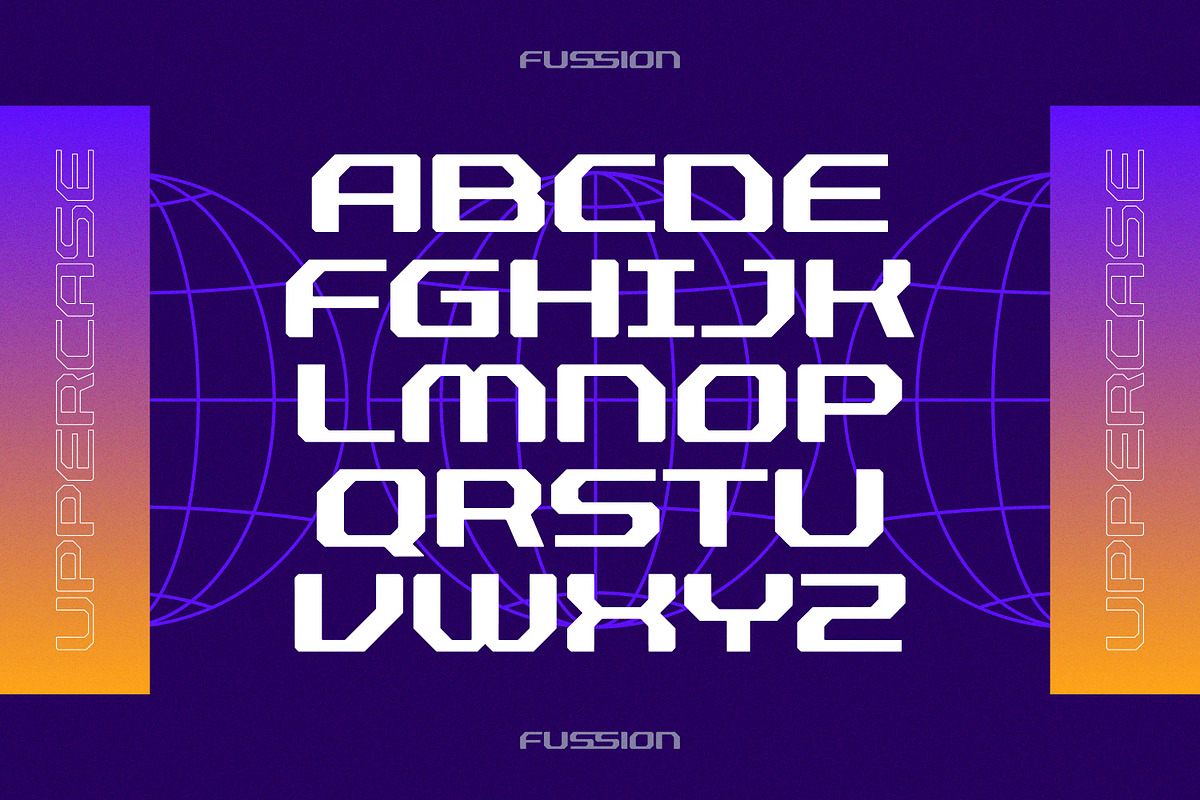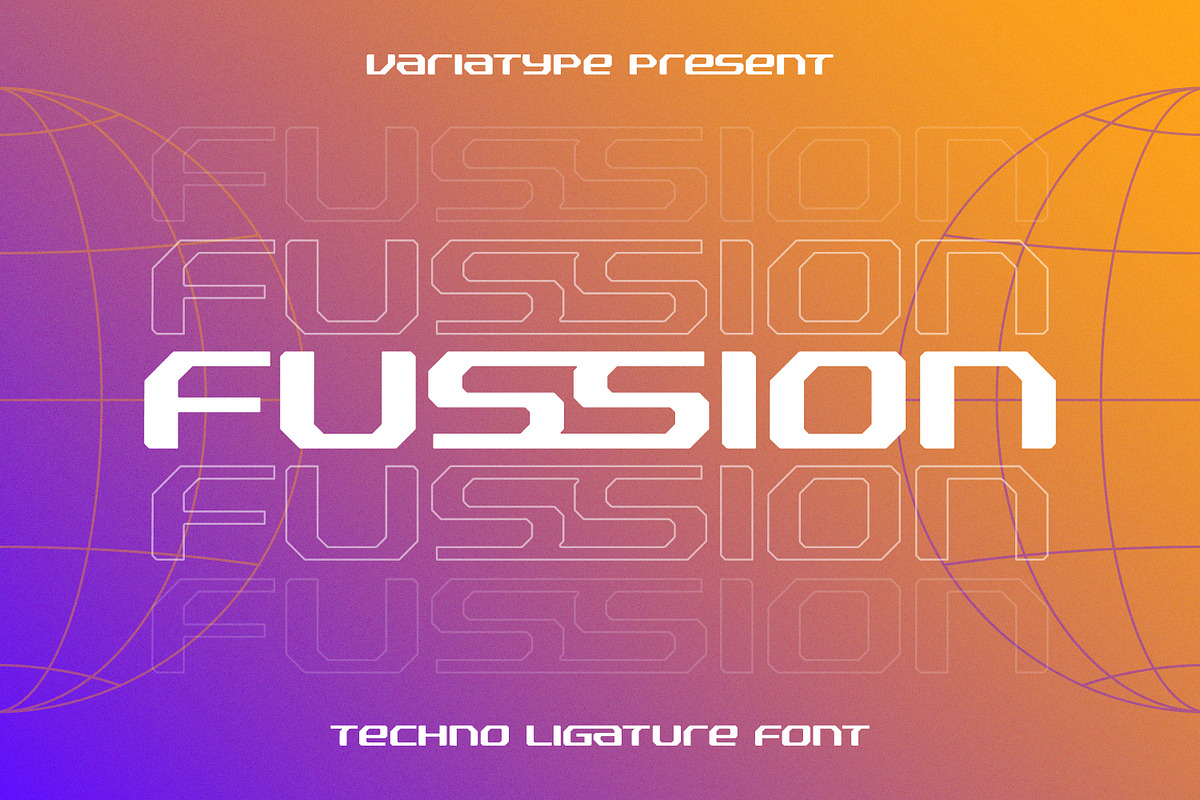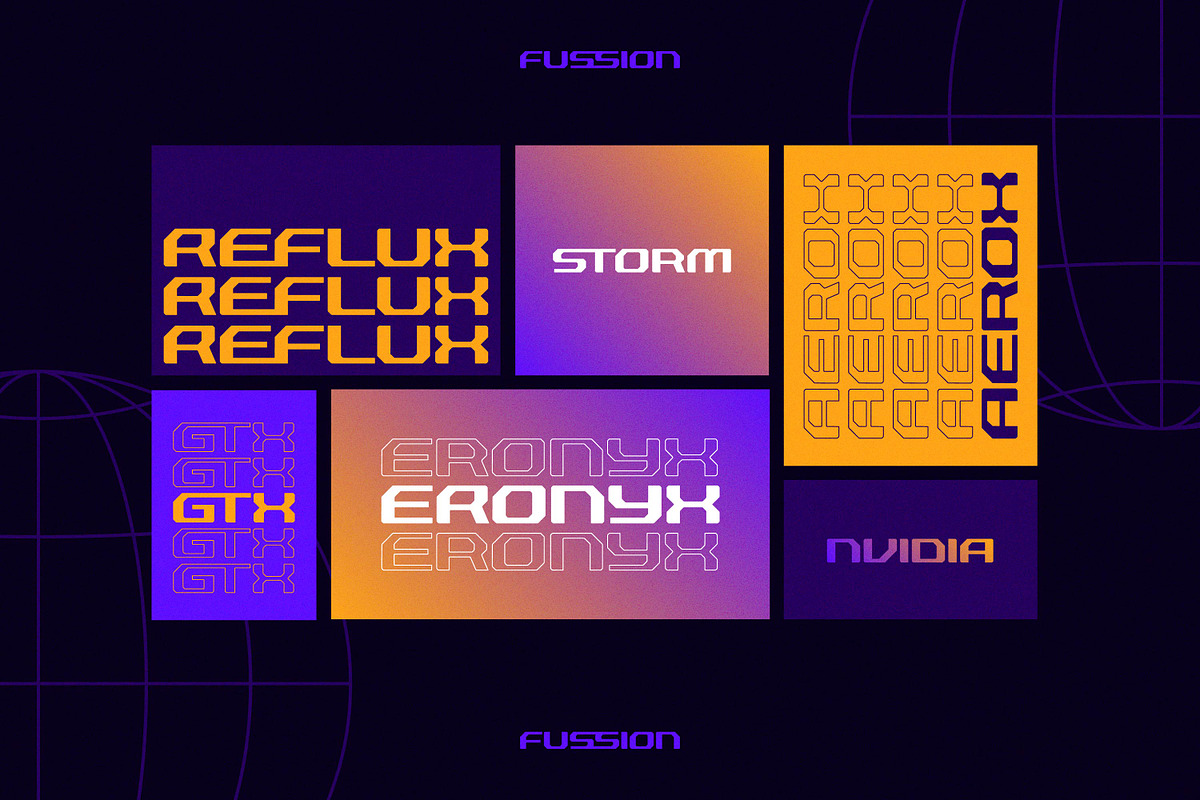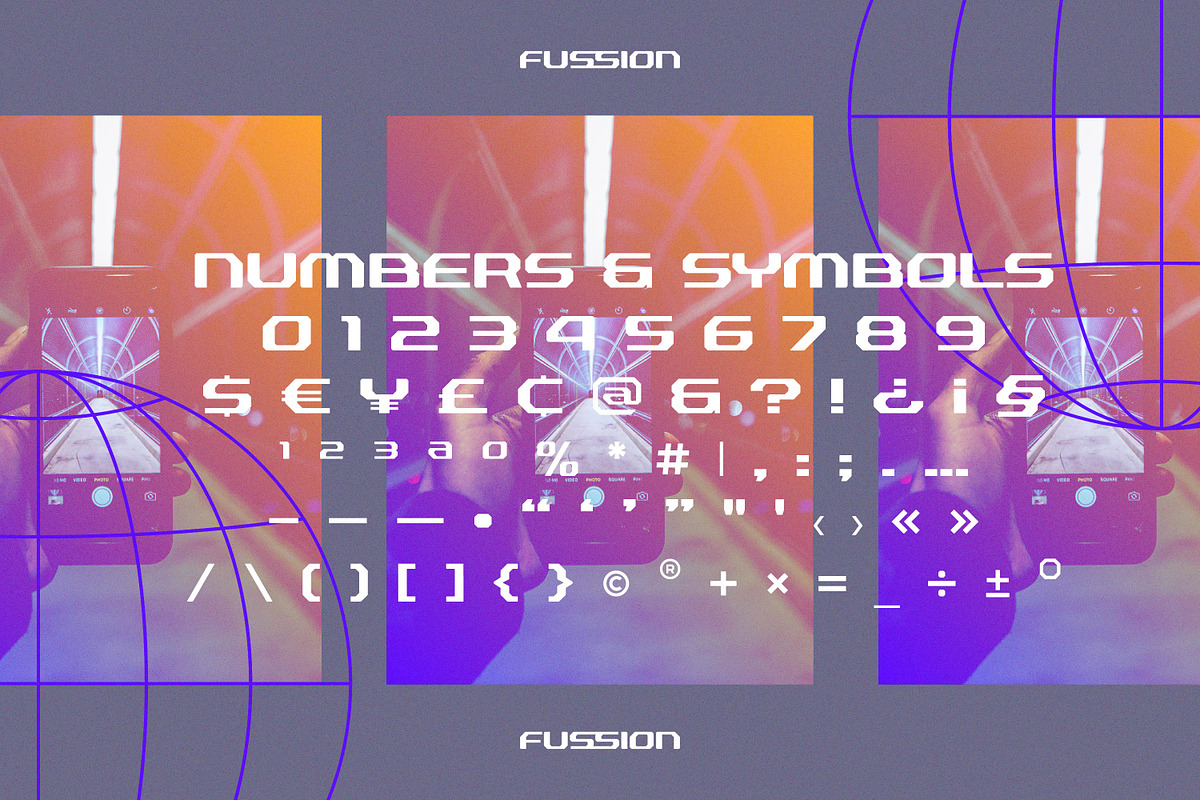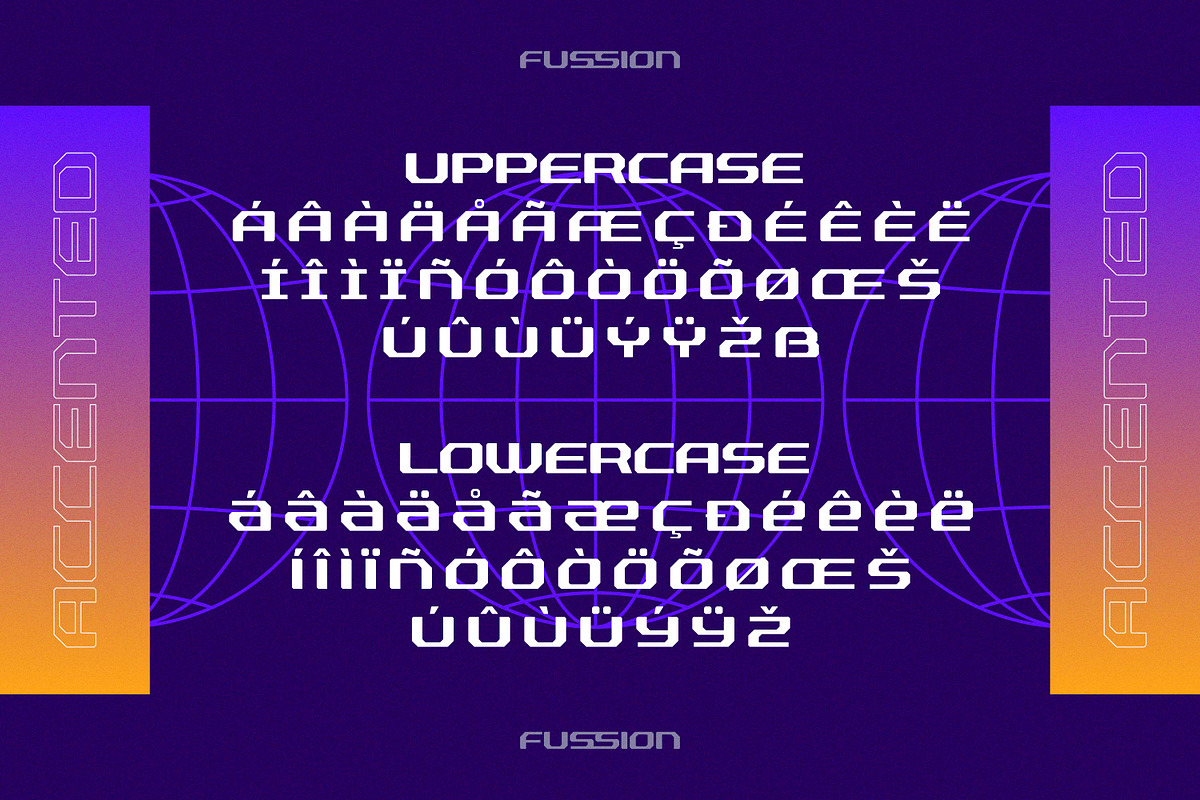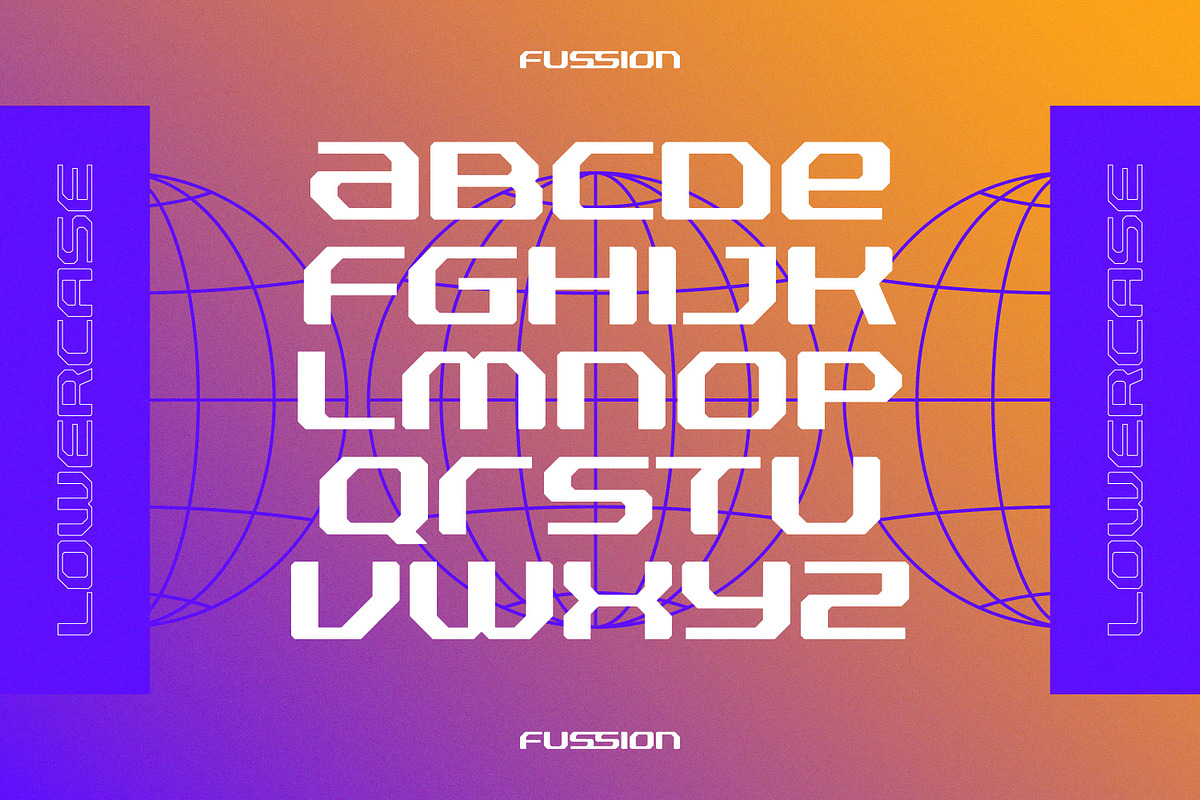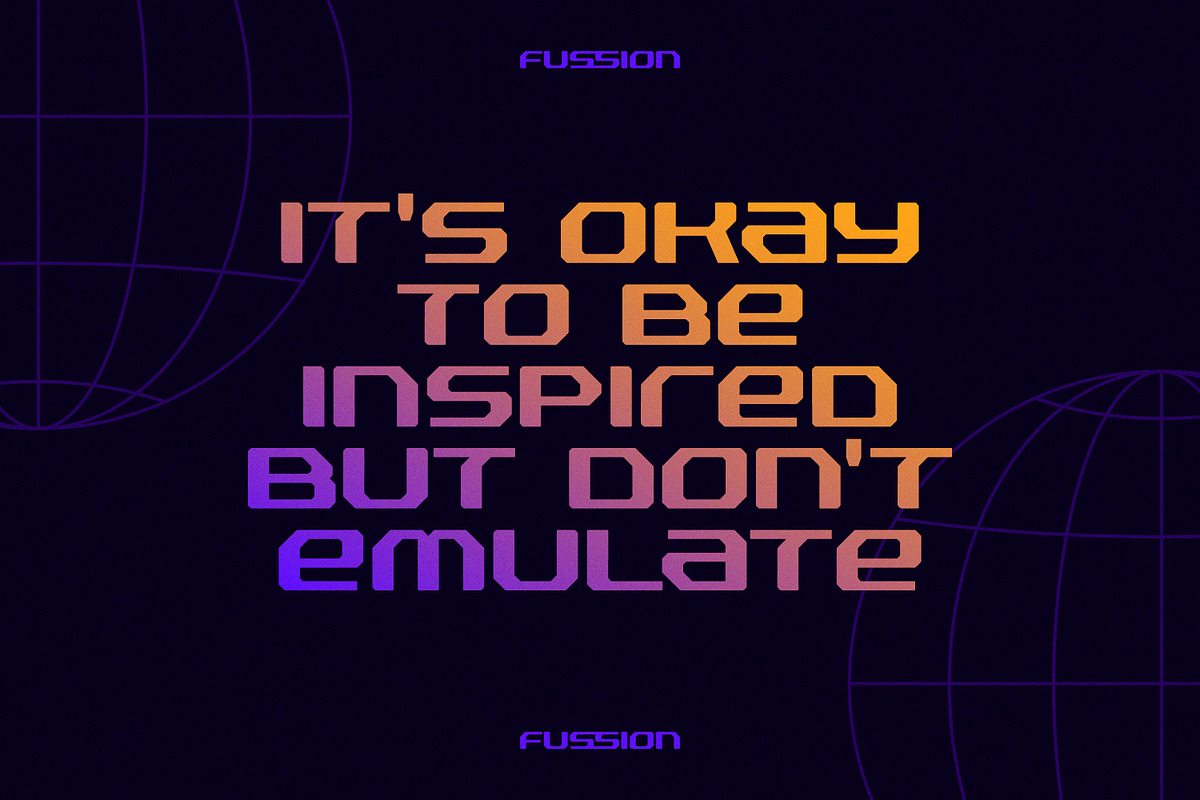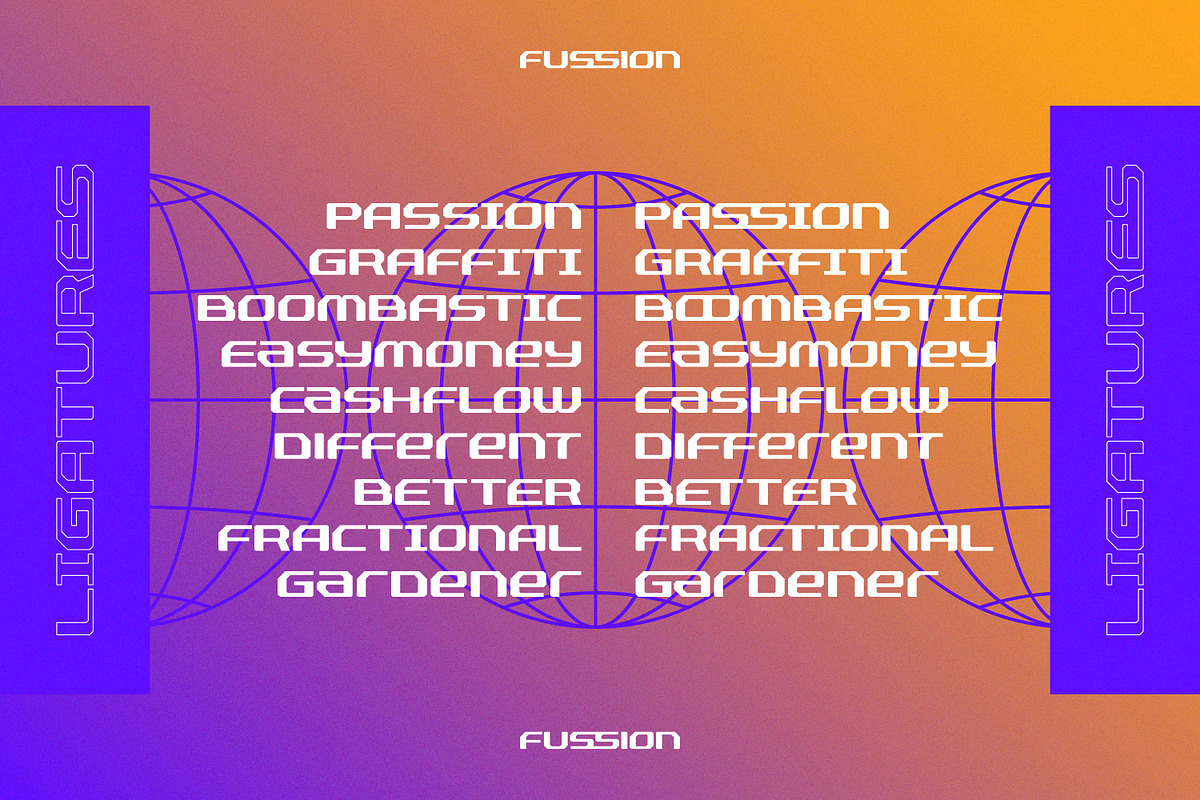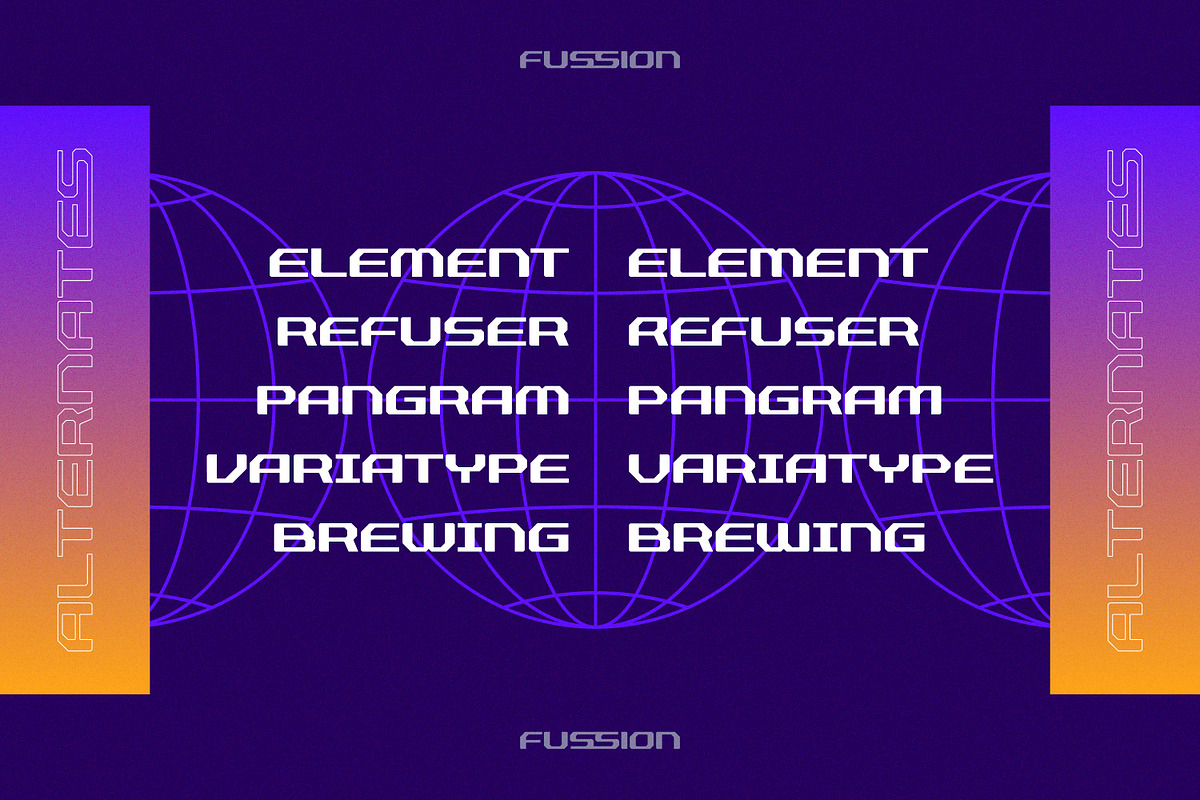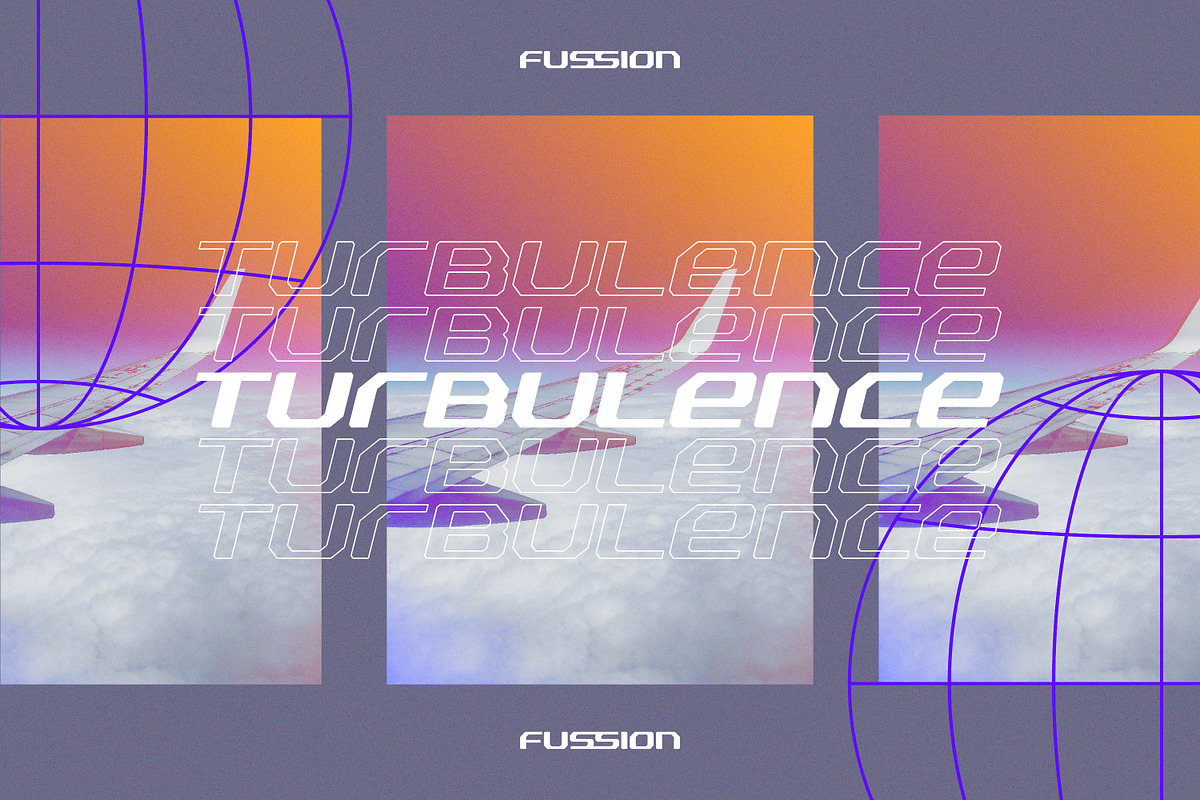
Fussion - Techno Ligature
Fussion is inspired by modern technology, it's really suited to your branding project or logotype and more commercial project. With more ligatures to make it flexible to any brand name.
FONT FEATURES
Additional Accents
66 Languages
Kerning